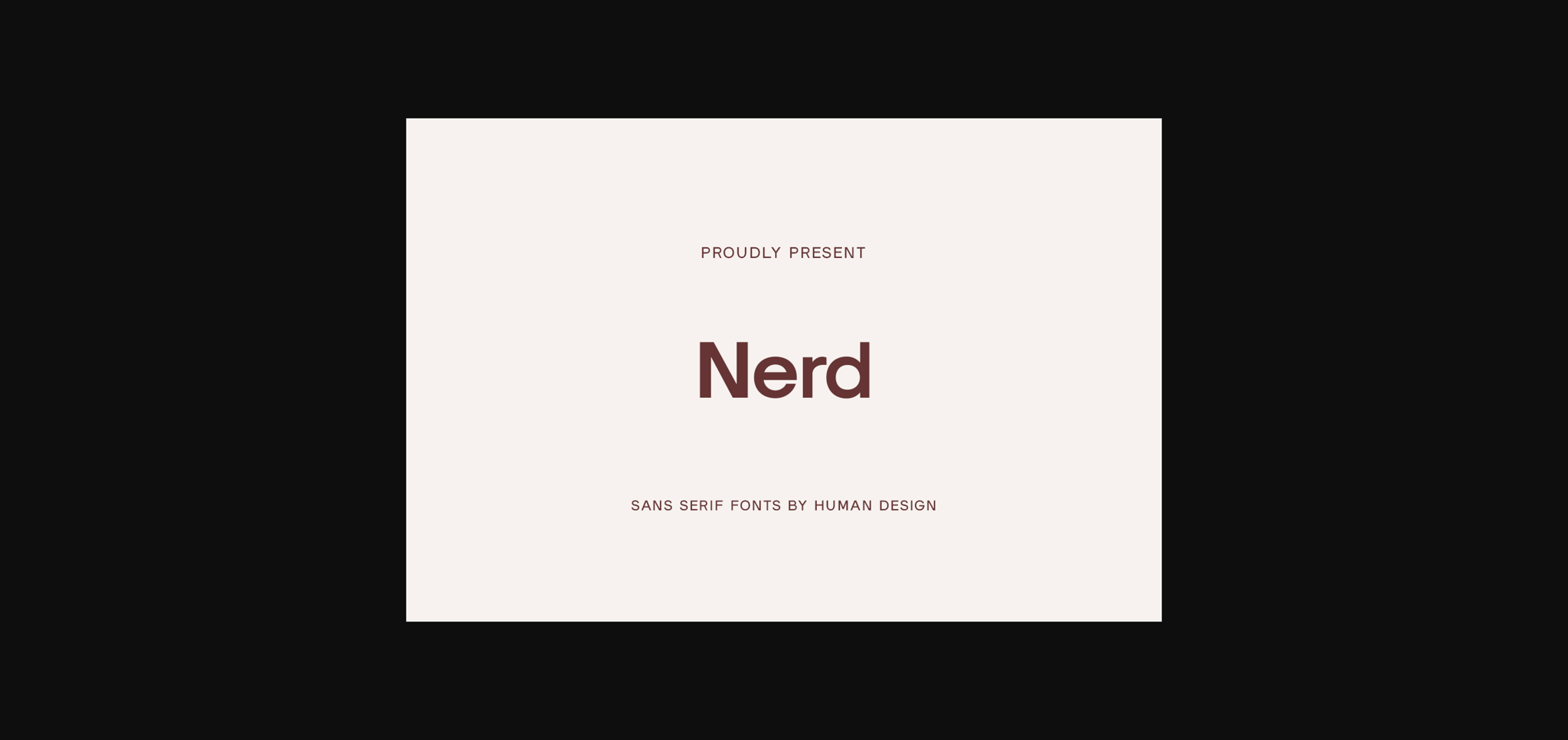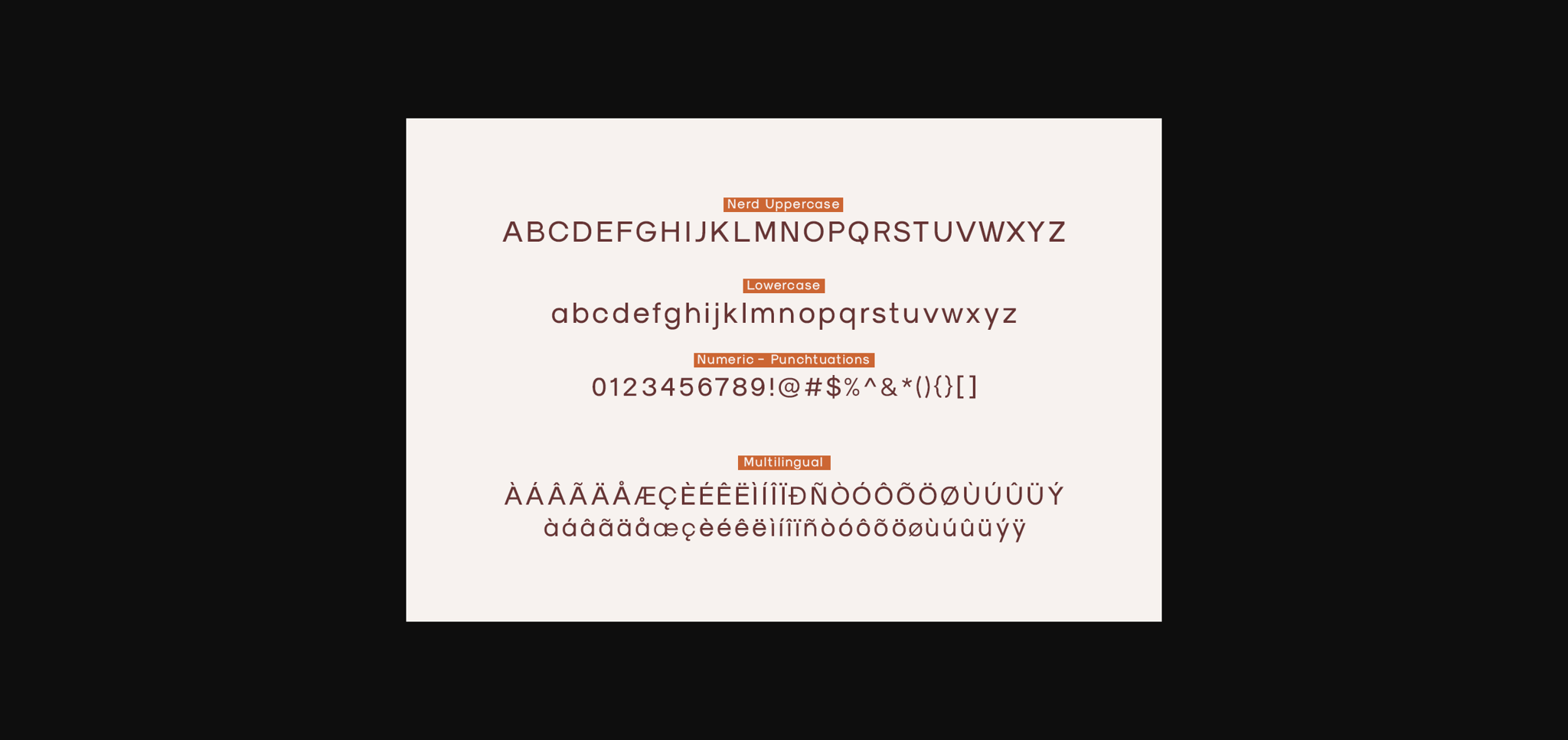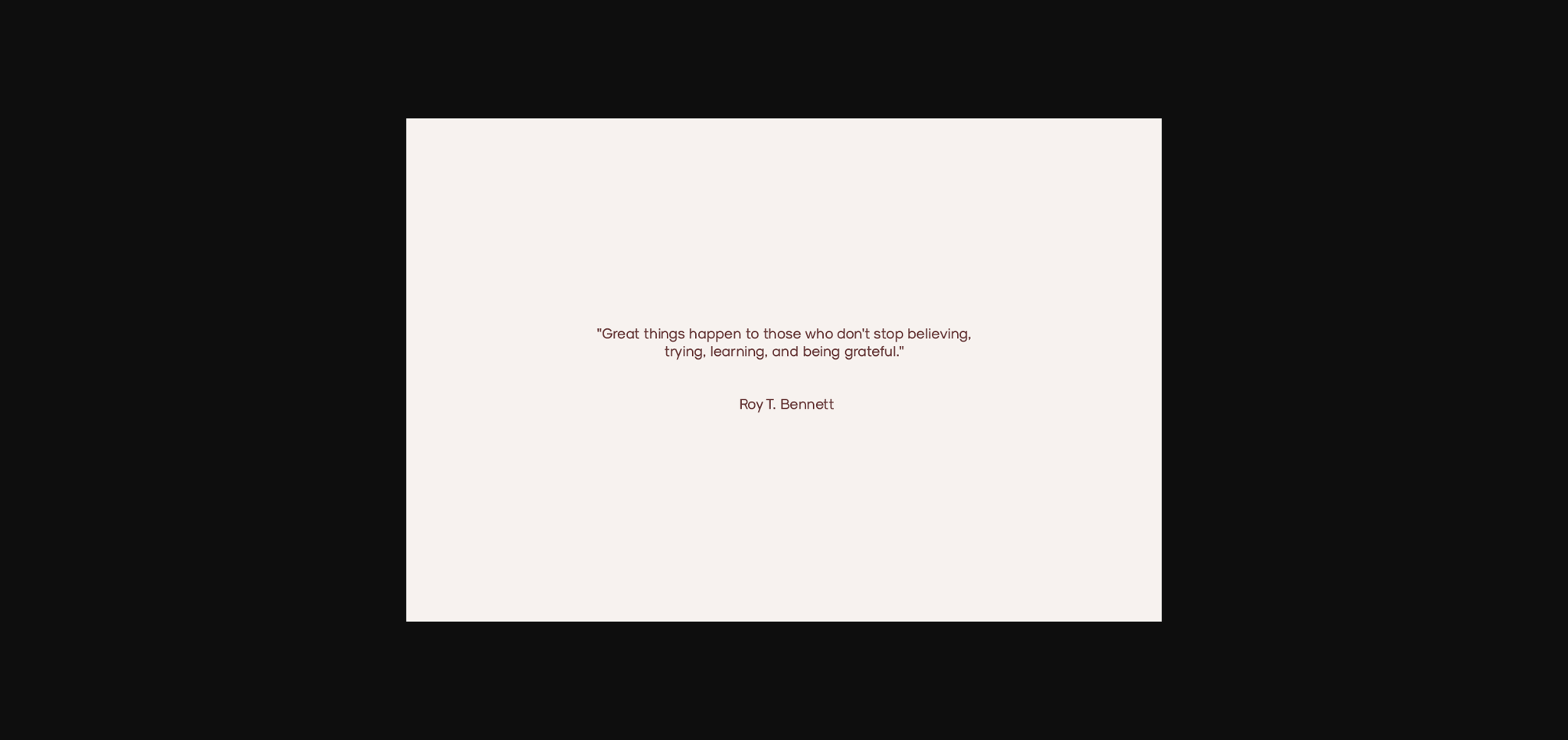
Nerd is a modern, minimal and clean sans display font. It can easily be matched to a huge set of projects, so add it to your creative ideas and notice how it makes them stand out!